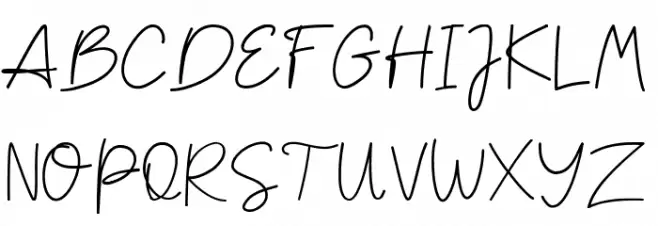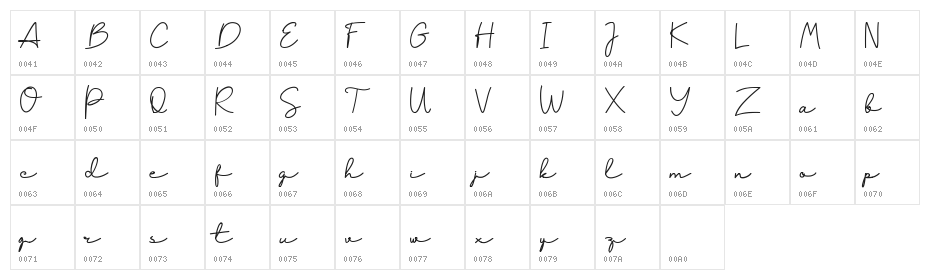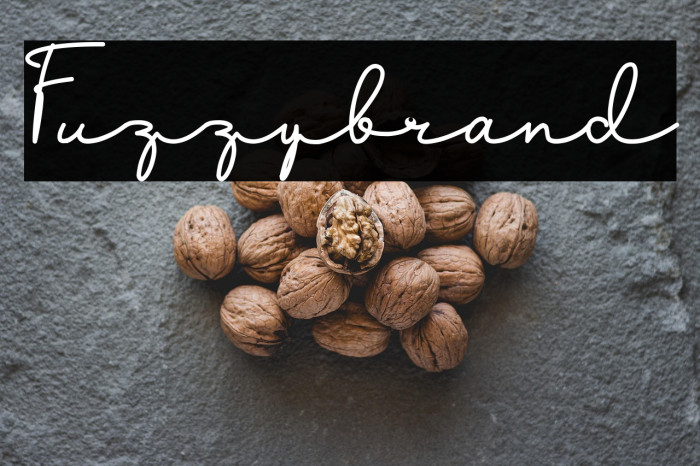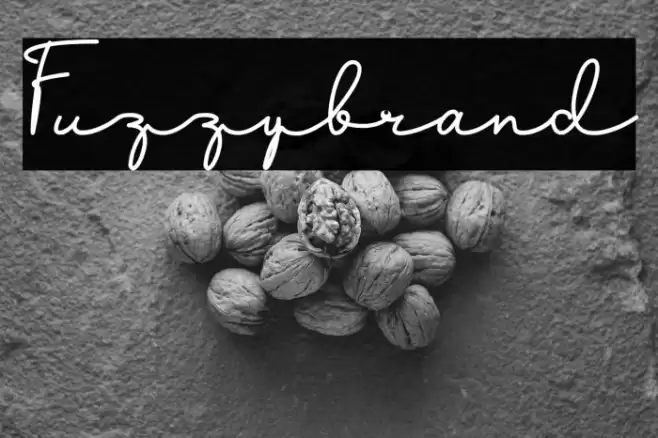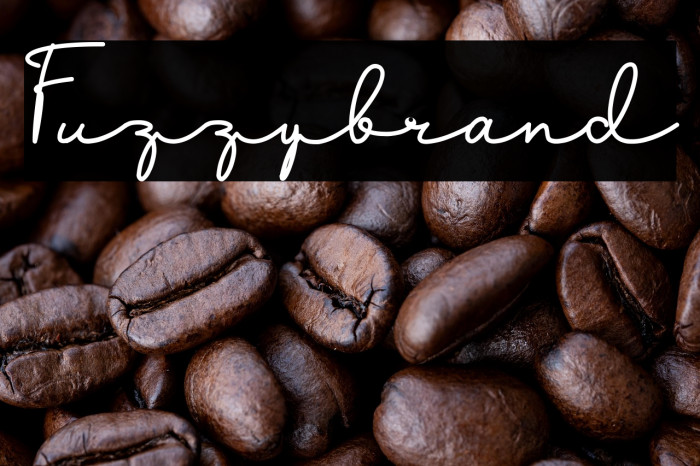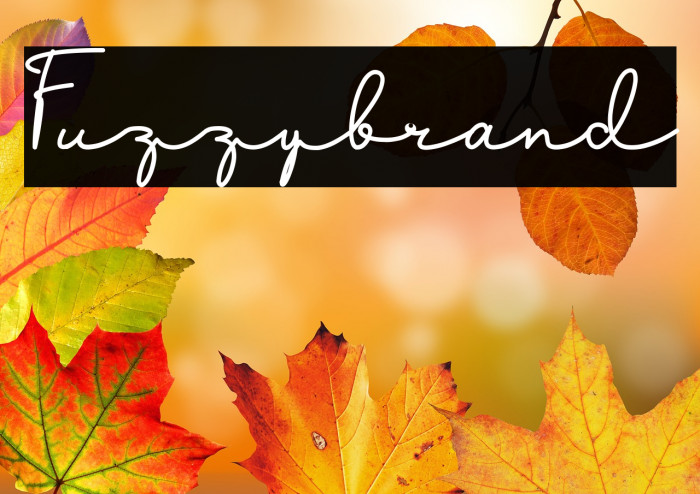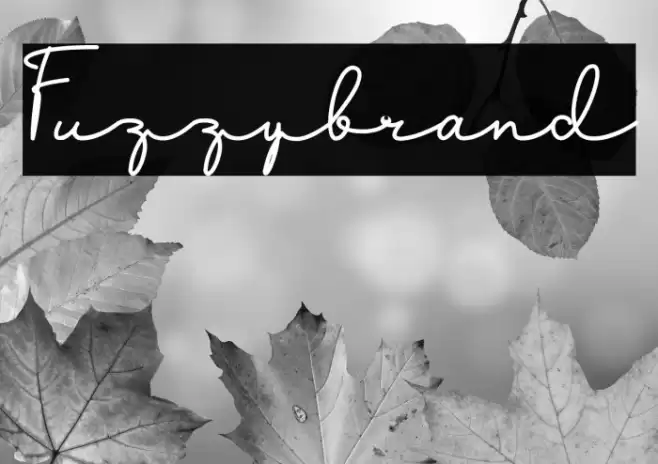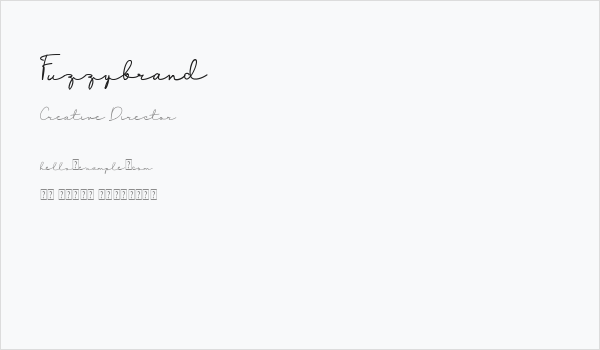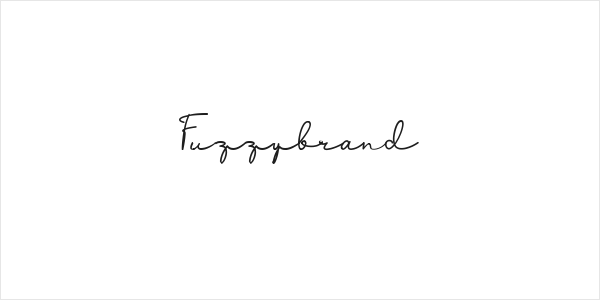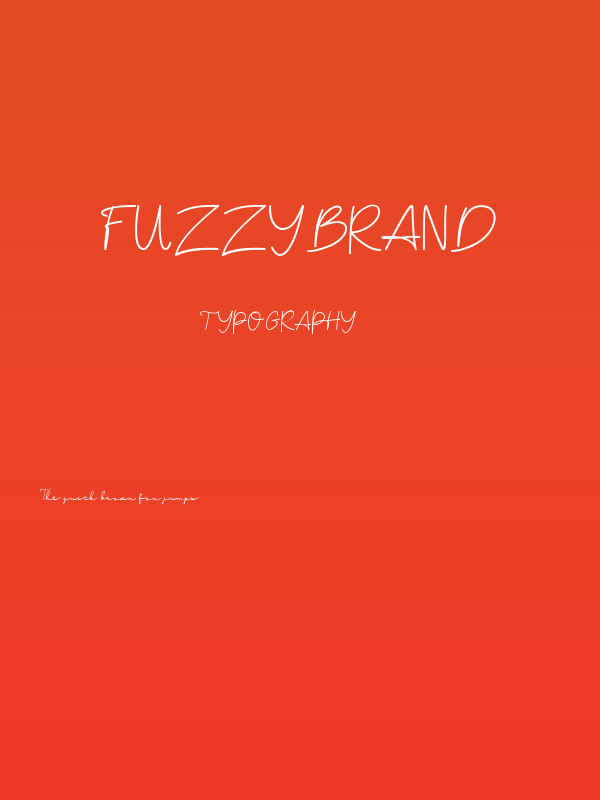
Fuzzybrand Font
Fuzzybrand Description
This font features a lively and dynamic handwritten style, characterized by its fluid and cursive strokes. The uppercase letters exhibit a playful yet elegant form, with a slight slant that adds to its casual appeal. The lowercase letters maintain a consistent flow, enhancing readability while preserving the font's artistic flair. The numerals and special characters are crafted with the same attention to detail, ensuring a cohesive look across all text elements. This font's unique charm lies in its ability to convey a sense of personal touch and creativity, making it ideal for projects that require a humanistic and approachable feel.
| Overall Style | Casual, Artistic |
| Use Case | Headlines, Invitations, Personal Branding |
| Proposed Projects | Ideal for greeting cards, invitations, personal branding, and creative projects that require a personal touch. |